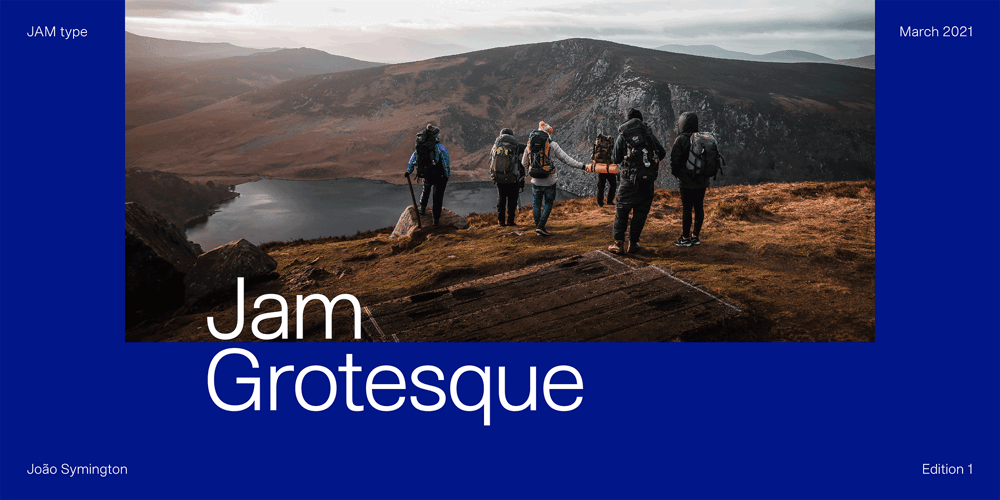
Jam Grotesque Font Family was designed by João Symington and published by JAM Type Design. Jam Grotesque contains 14 styles and family package options. Inspired by the beautiful typefaces like Helvetica and Neue Haas Unica, this beautiful typeface looks fantastic in print as well as online.